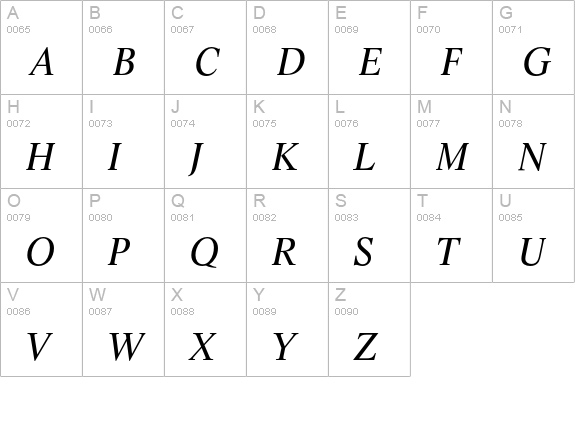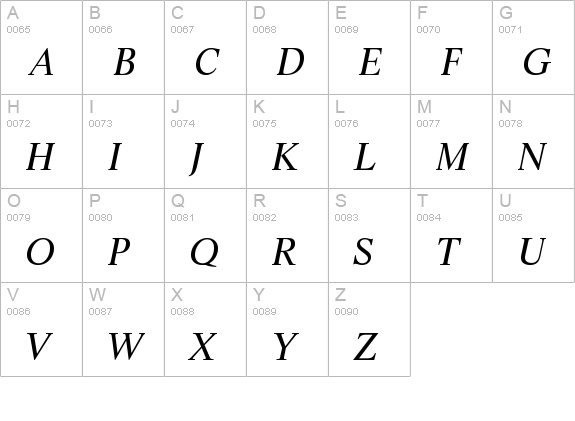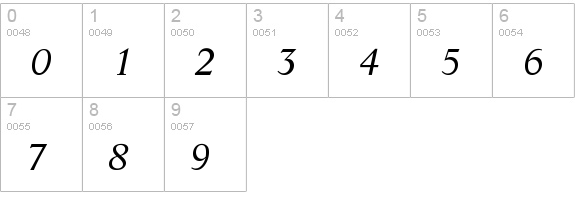
LifeEF-RegularItalic Font Details
LifeEF-RegularItalic font is a stylish and modern typeface designed to add a touch of elegance to your projects. Its italicized design gives a sophisticated and dynamic look to any text while maintaining readability. The sleek curves and unique letterforms of LifeEF-RegularItalic make it perfect for a variety of uses, from branding to editorial design. What sets this font apart is that it is available for free download at FontsMarket.com. You can easily access this high-quality font and enhance your designs without any cost. Whether you're working on a personal project or a client's work, LifeEF-RegularItalic font will add a professional and polished finish to your typography. Upgrade your font library today with this versatile and eye-catching typeface.